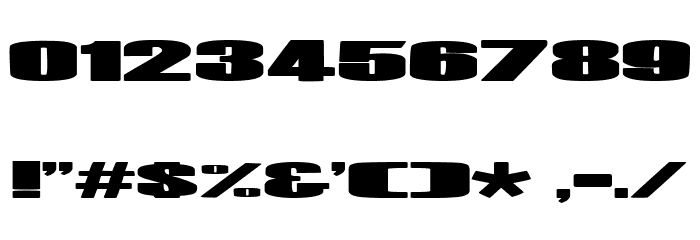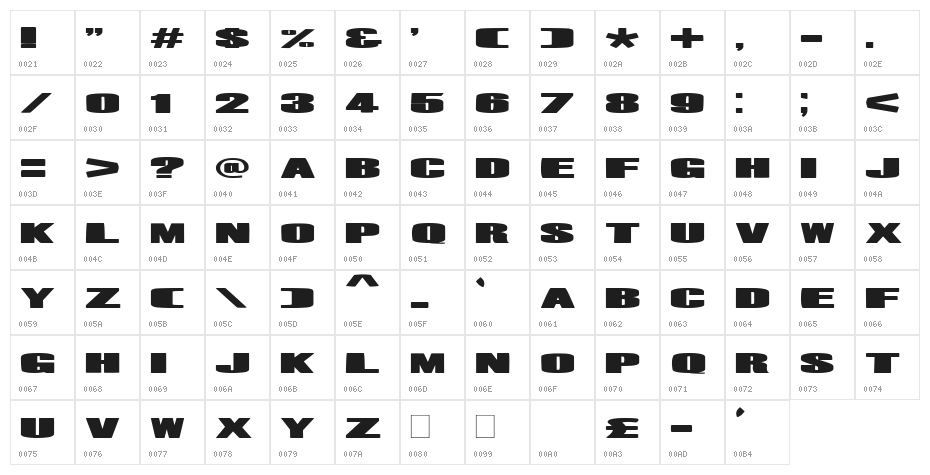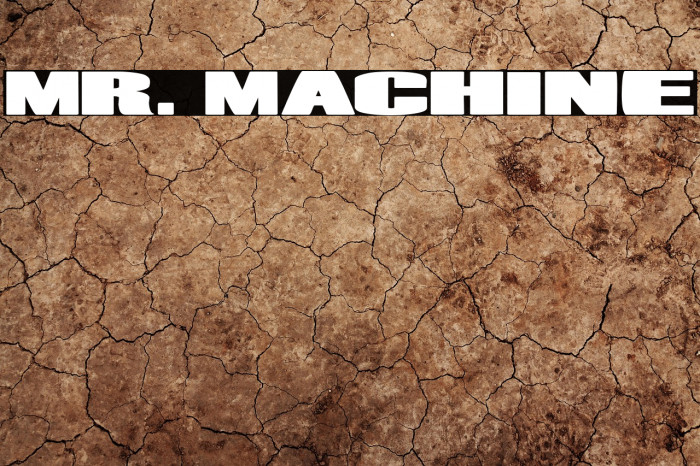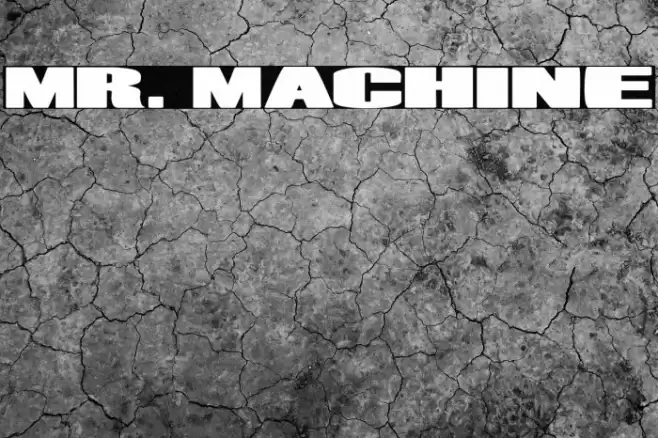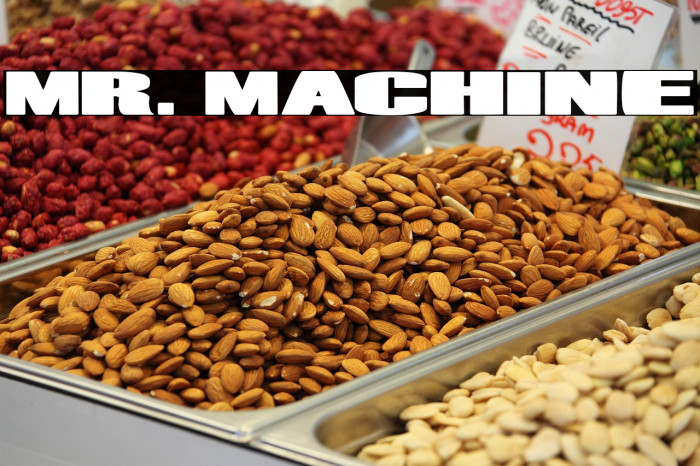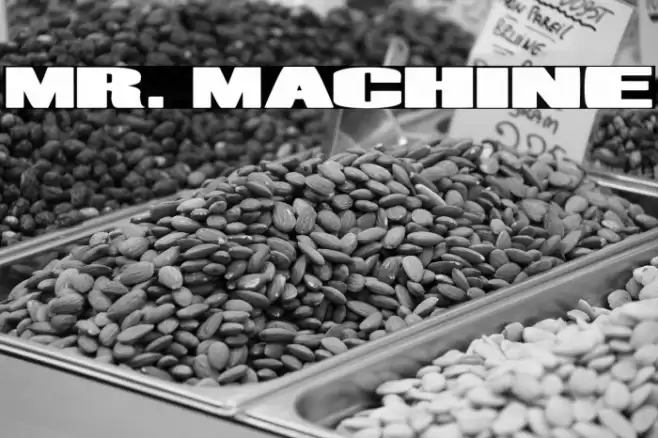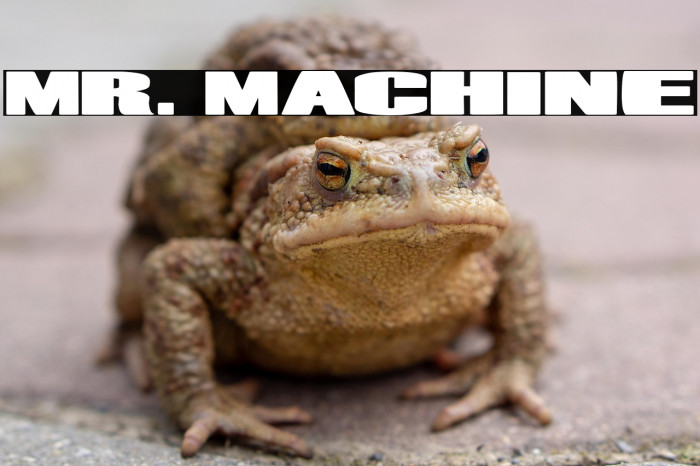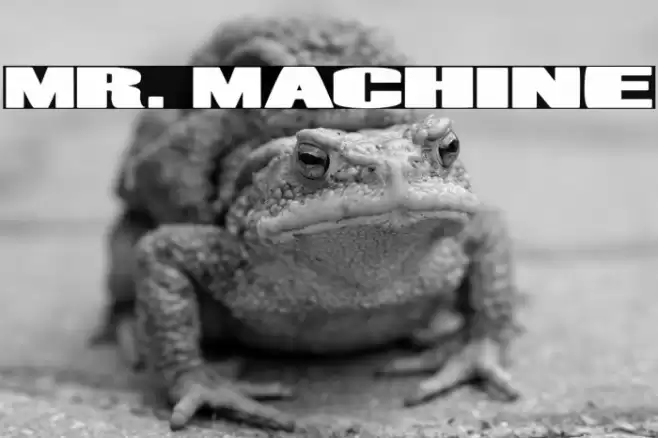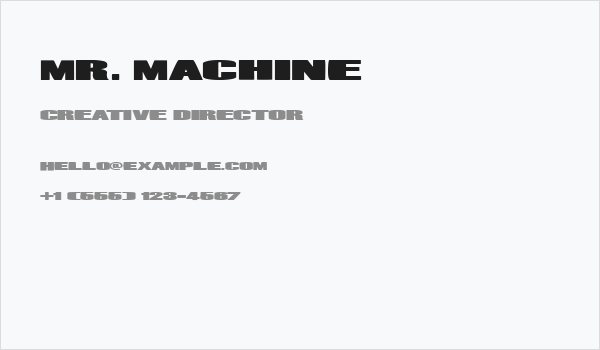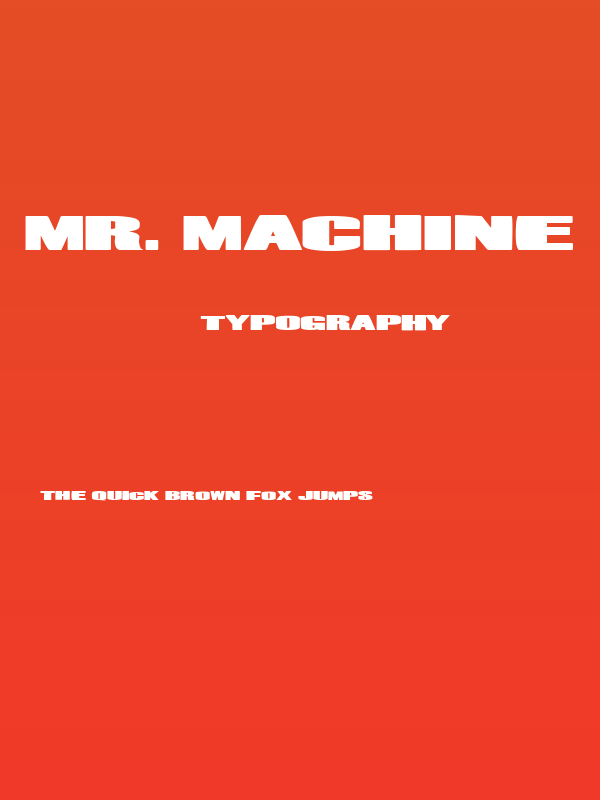
Mr. Machine Font
Mr. Machine Description
This bold and impactful font features thick, blocky letters with a strong presence. The characters are uniformly wide, creating a sense of stability and strength. The uppercase letters are particularly dominant, with a slight slant that adds a dynamic feel. The numbers and special characters maintain the same boldness, ensuring consistency across all glyphs. The font's design is reminiscent of industrial or mechanical aesthetics, making it ideal for projects that require a robust and assertive typeface.
Proposed ProjectsIdeal for posters, headlines, branding, and any design requiring a strong, impactful typeface.